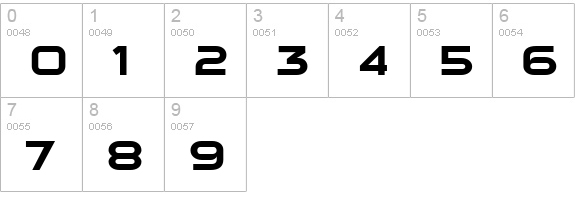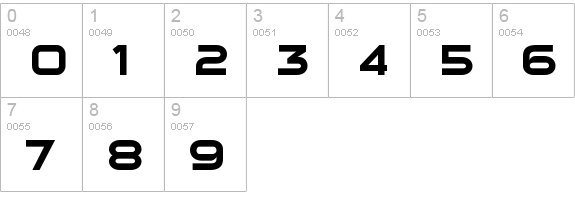
Sui Generis Free font is a modern and stylish typeface that exudes elegance and sophistication. With its unique design and sleek curves, this font is perfect for adding a touch of class to any project. Whether you're designing a logo, creating a poster, or crafting a website, Sui Generis Free font will make your text stand out and leave a lasting impression. What's even better is that Sui Generis Free font is available for free download at FontsMarket.com. This means you can easily access this stunning font without any cost, making it a valuable addition to your font collection. Don't miss out on the opportunity to elevate your designs with Sui Generis Free font – download it today and let your creativity shine!